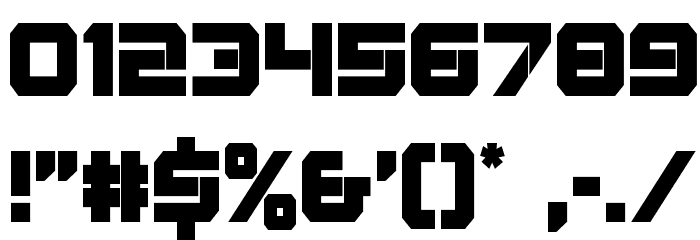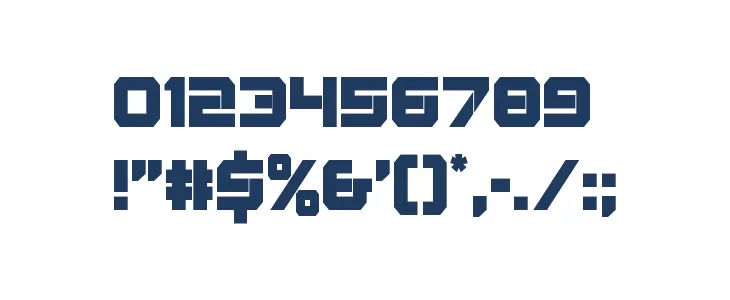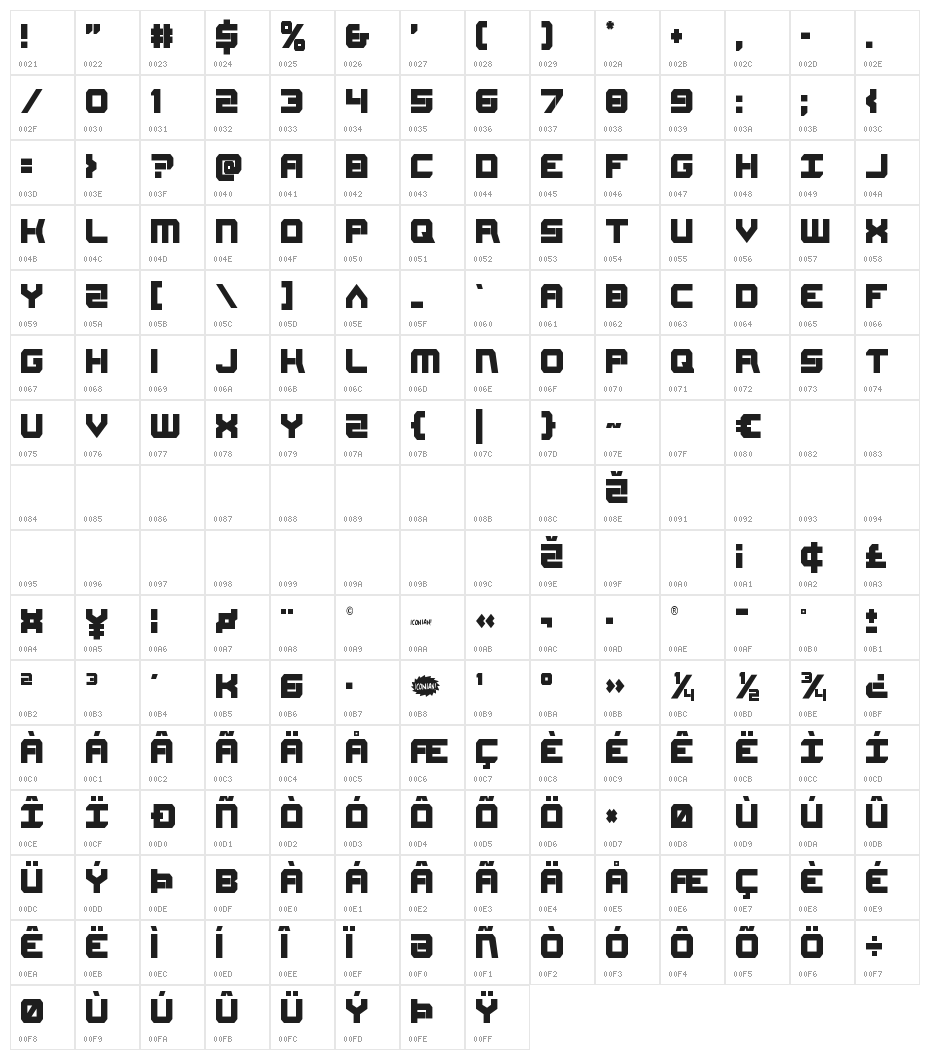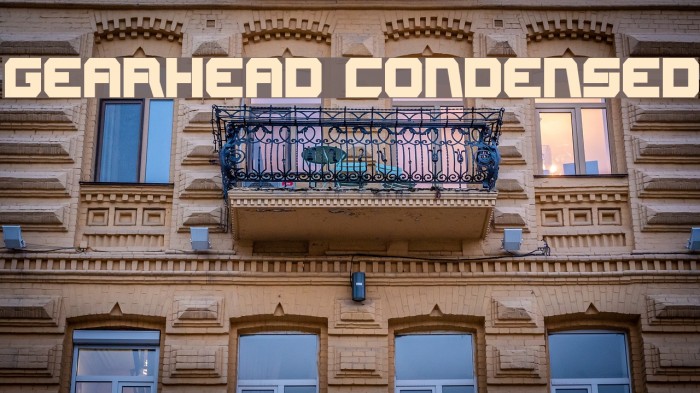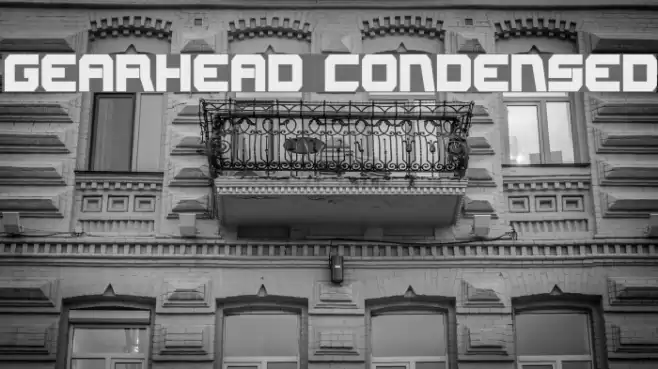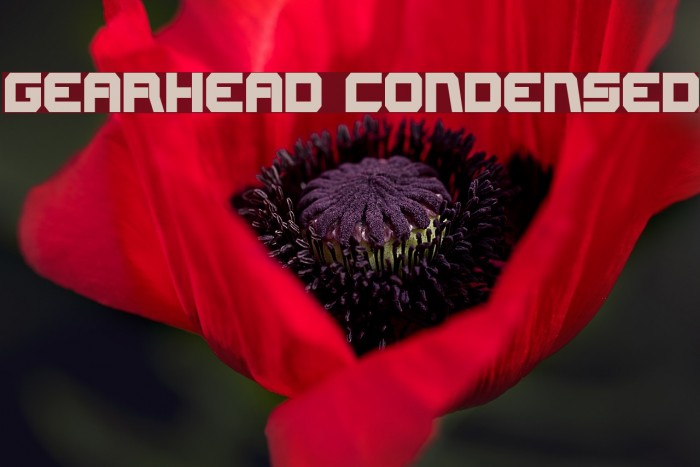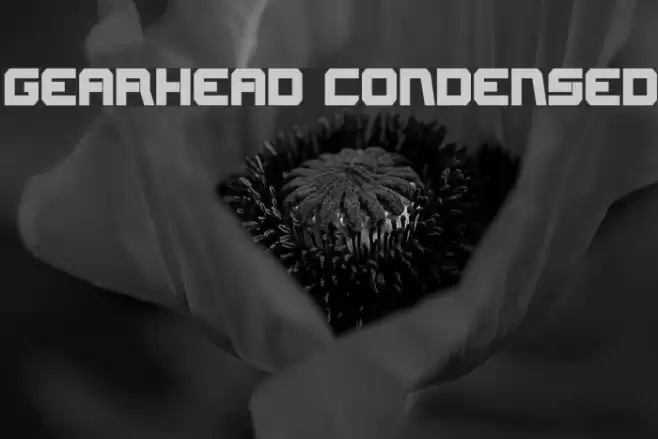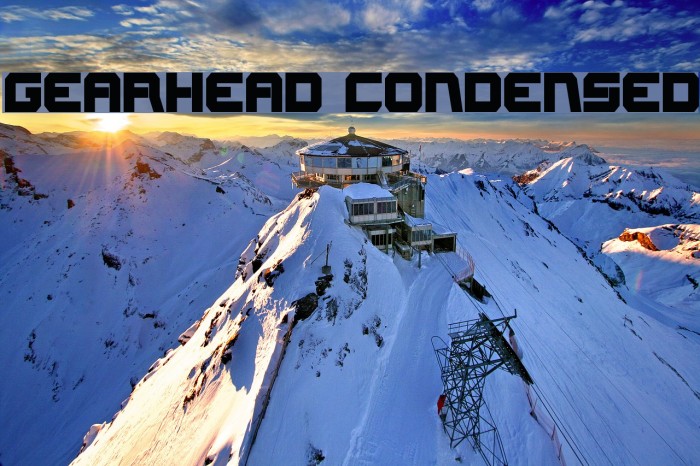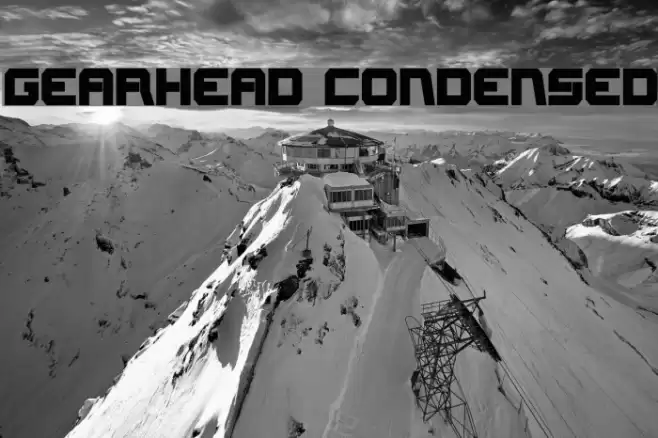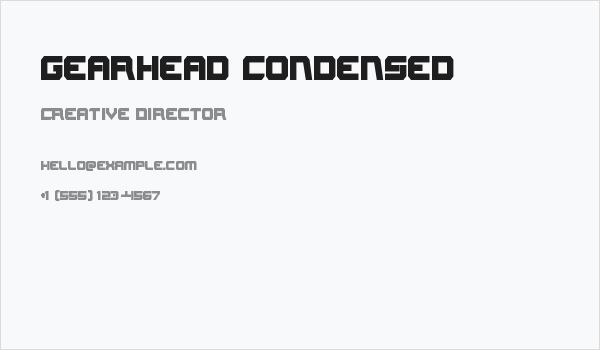
Gearhead Condensed Font
Gearhead Condensed Description
This font features a bold, geometric design with a distinctly industrial feel. The characters are constructed with sharp angles and a blocky structure, giving it a futuristic and mechanical appearance. The uppercase and lowercase letters maintain a consistent height, enhancing its uniformity. The numbers and special characters follow the same angular style, ensuring cohesion across all glyphs. The condensed width of the font allows for efficient use of space, making it suitable for designs where space is limited but impact is necessary. Its strong presence and unique style make it ideal for projects that require a modern and edgy look.
| Proposed Projects | Ideal for technology branding, video game titles, posters, and industrial-themed designs. |